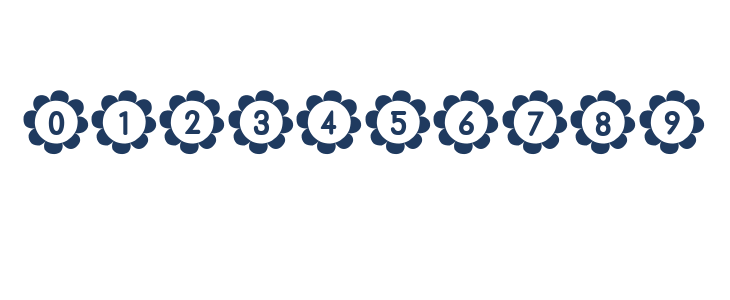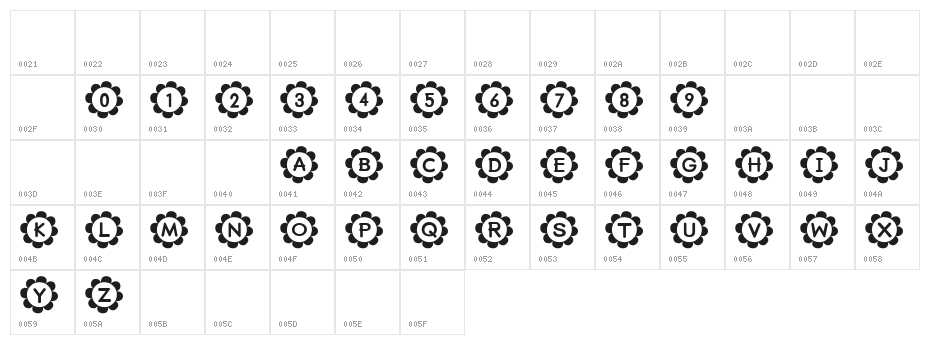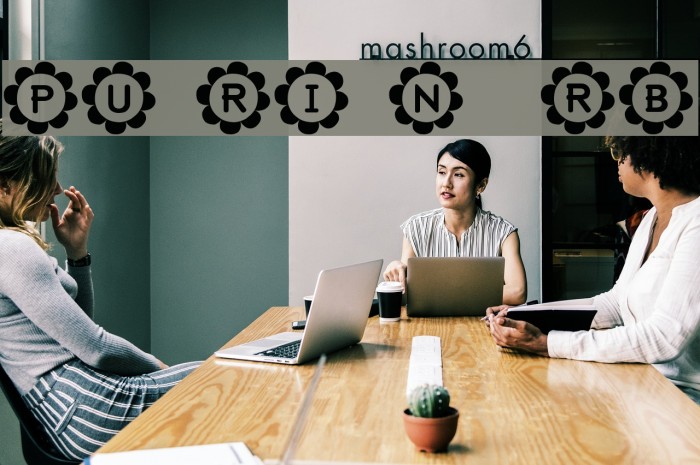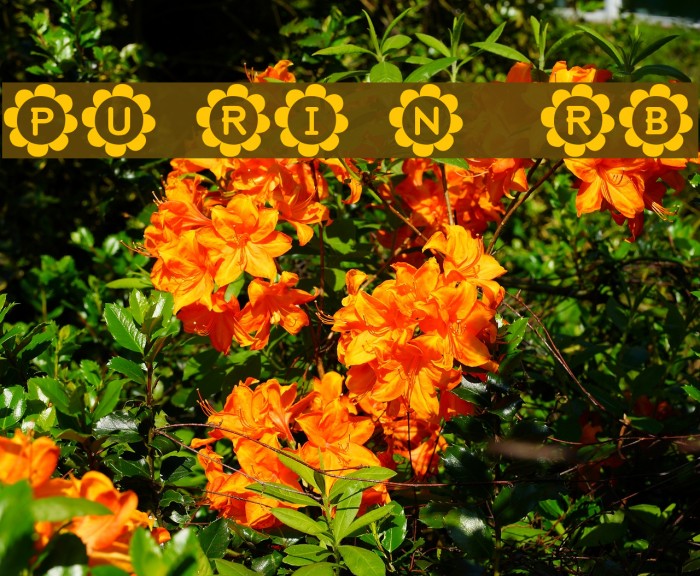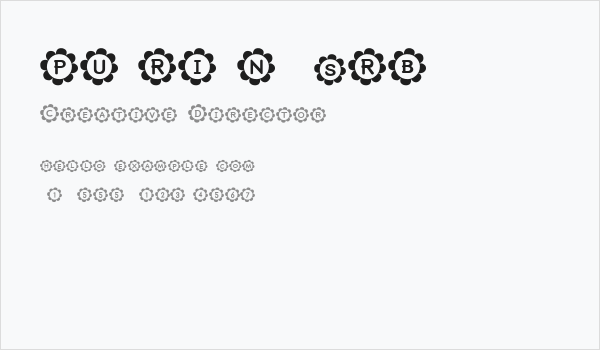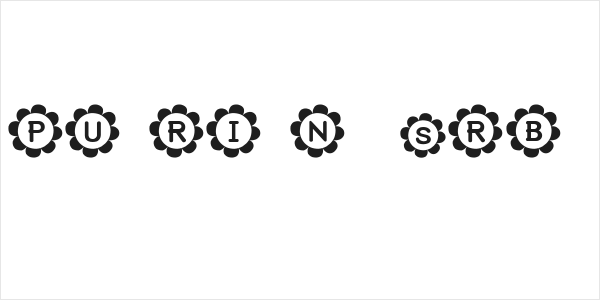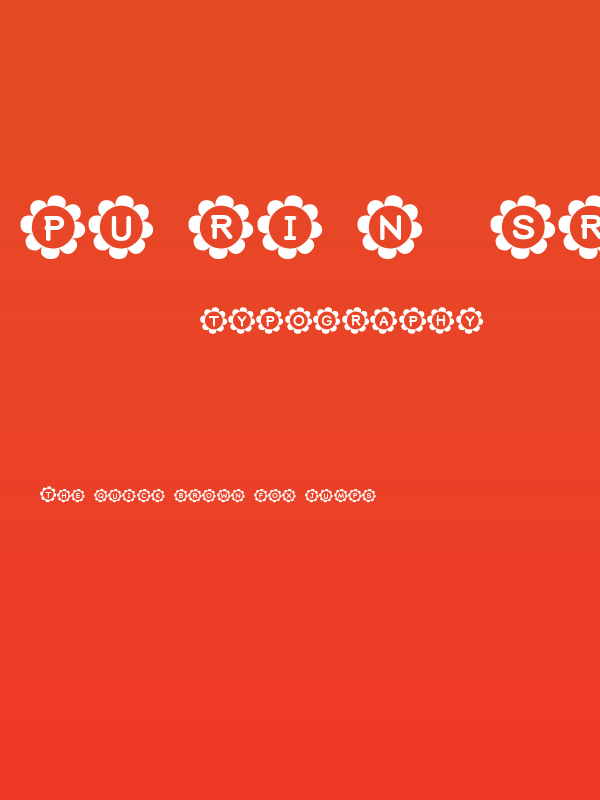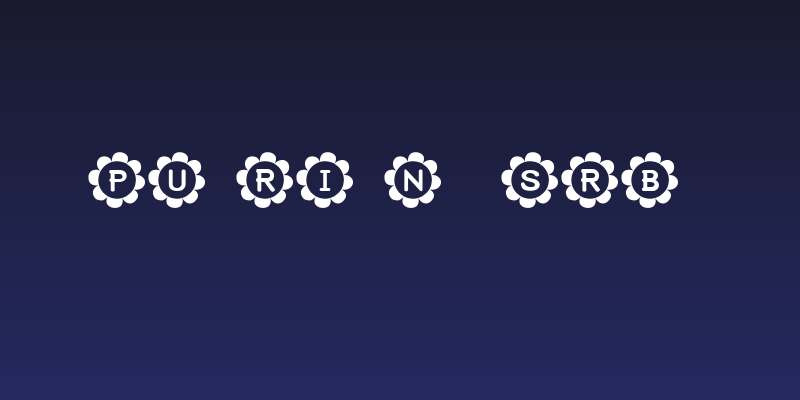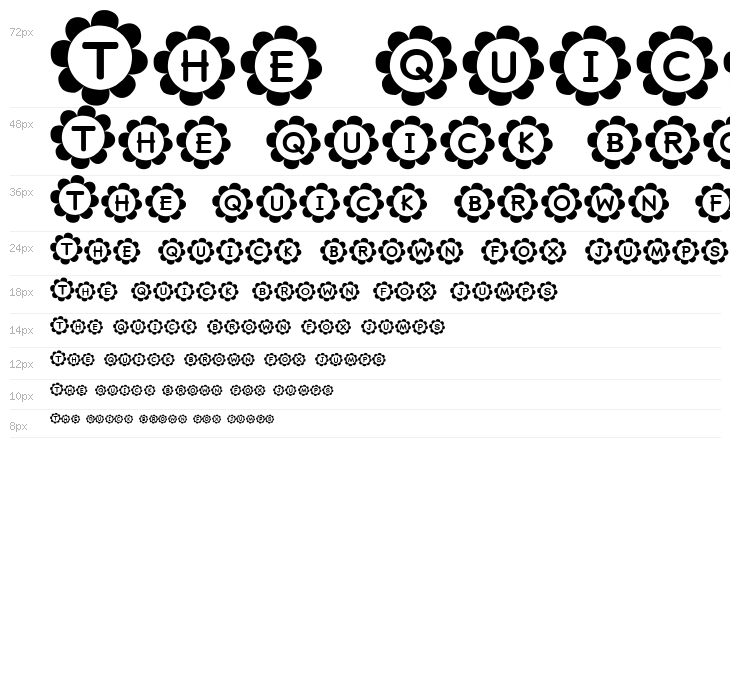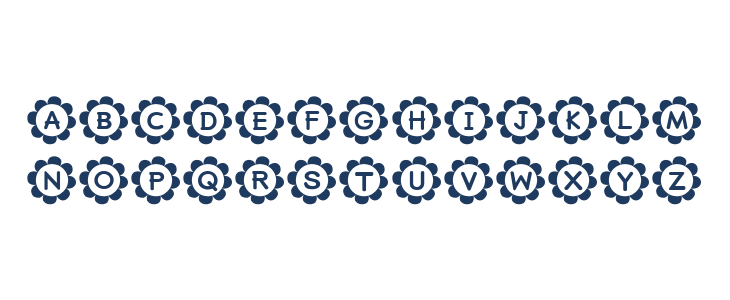
PU-RI-N [sRB] Font
PU-RI-N [sRB] Description
This decorative font features each character encased within a stylized flower-like border, creating a playful and whimsical appearance. The letters and numbers are bold and clear, set against a contrasting background that enhances readability. The unique design makes it stand out, with each character centered within its floral frame. This font is ideal for projects that require a fun and engaging aesthetic, such as children's books, party invitations, or playful branding. The consistent floral motif across all characters adds a cohesive and charming touch to any design.
| Use Case | Headlines, Logos, Decorative text |
| Proposed Projects | Ideal for children's books, party invitations, playful branding, and decorative signage. |